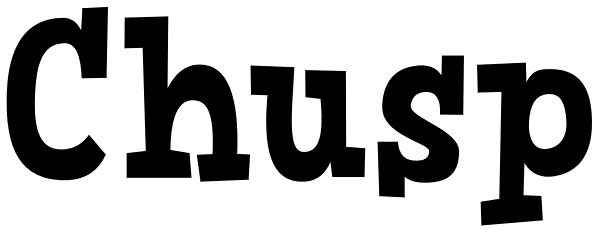
Chusp
A laid back slab serif font with a good deal of the funky side of pizzadude.dk! You will need to use OpenType supporting applications to use the autoligatures
Chusp Font